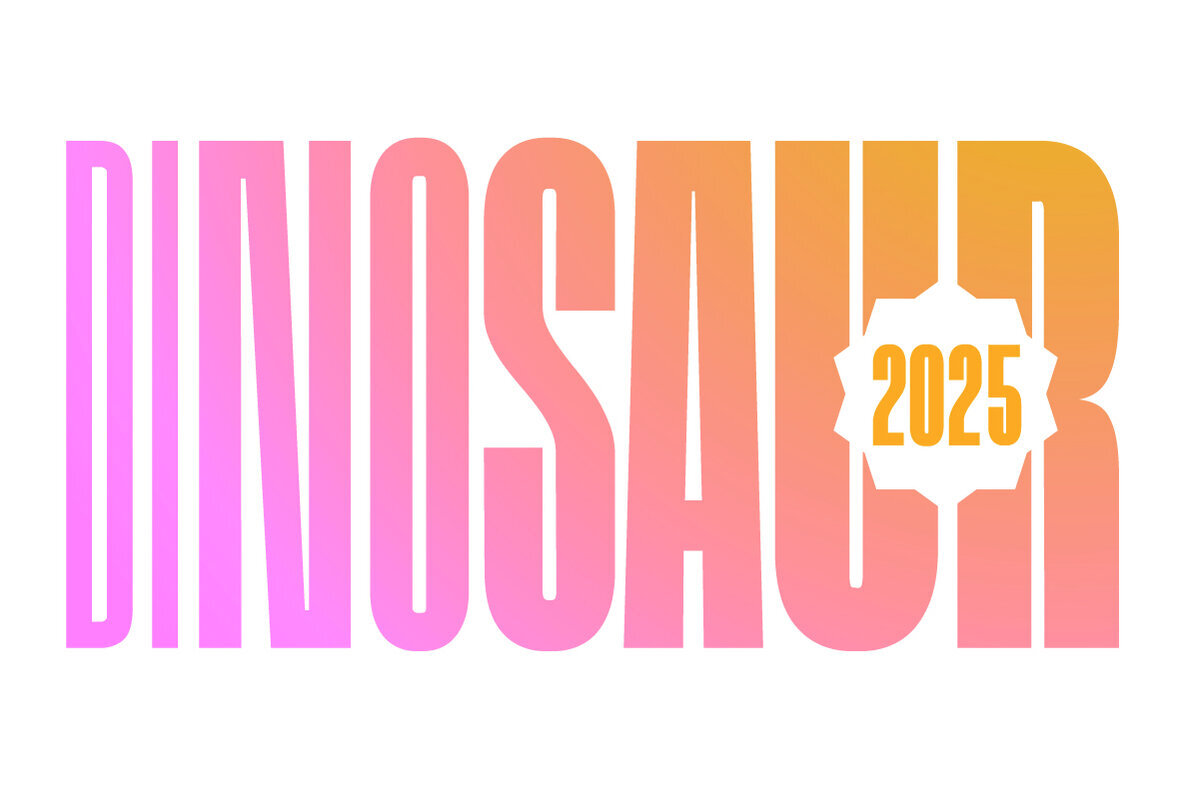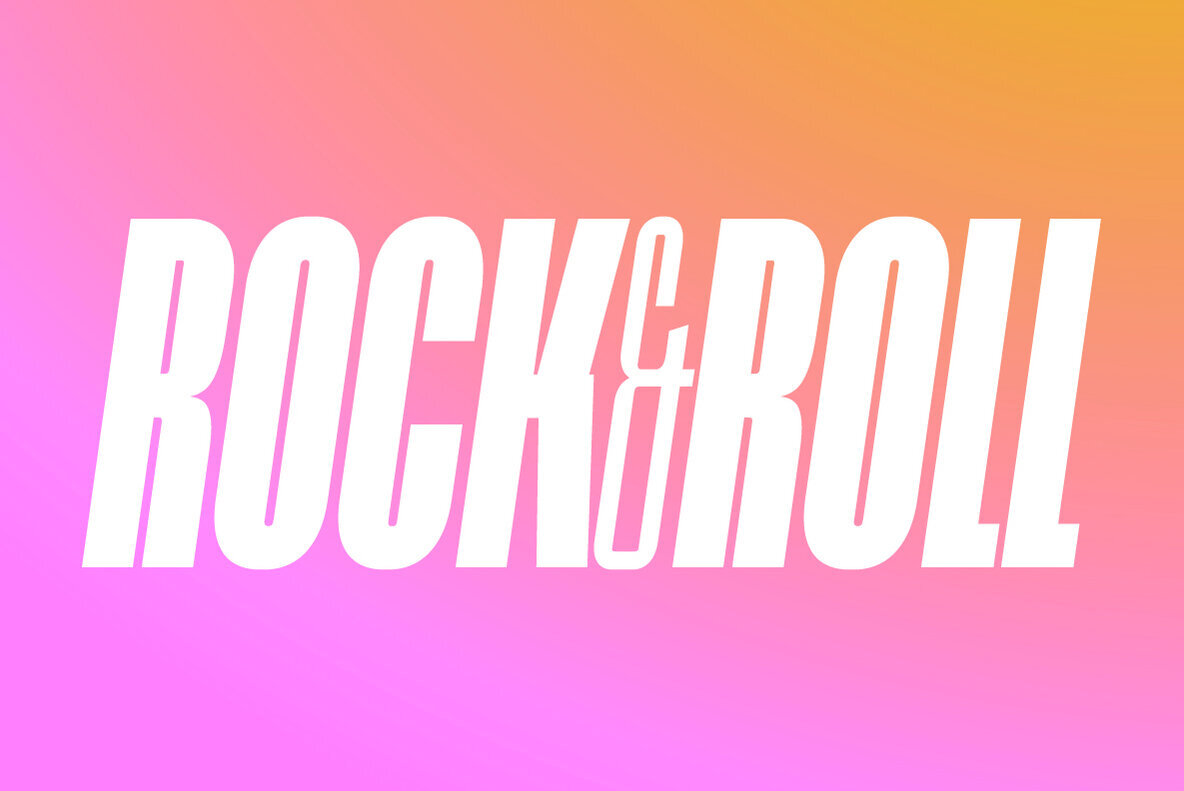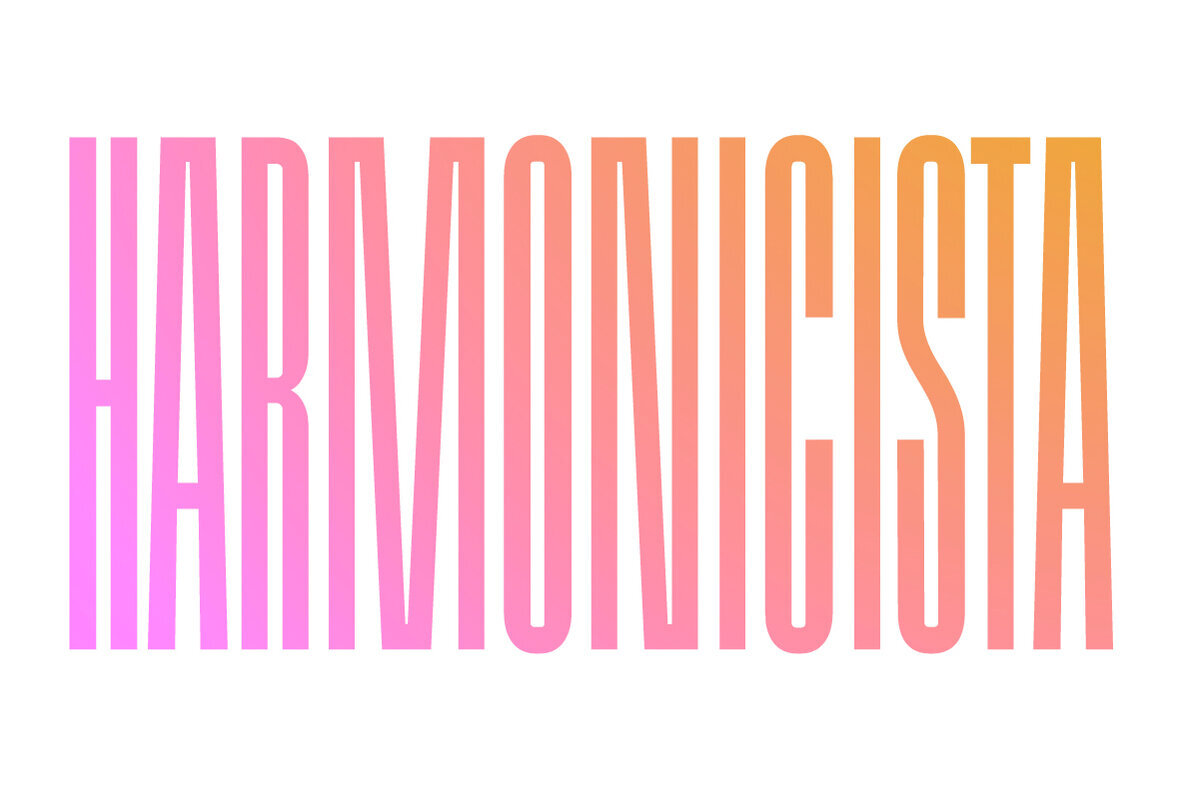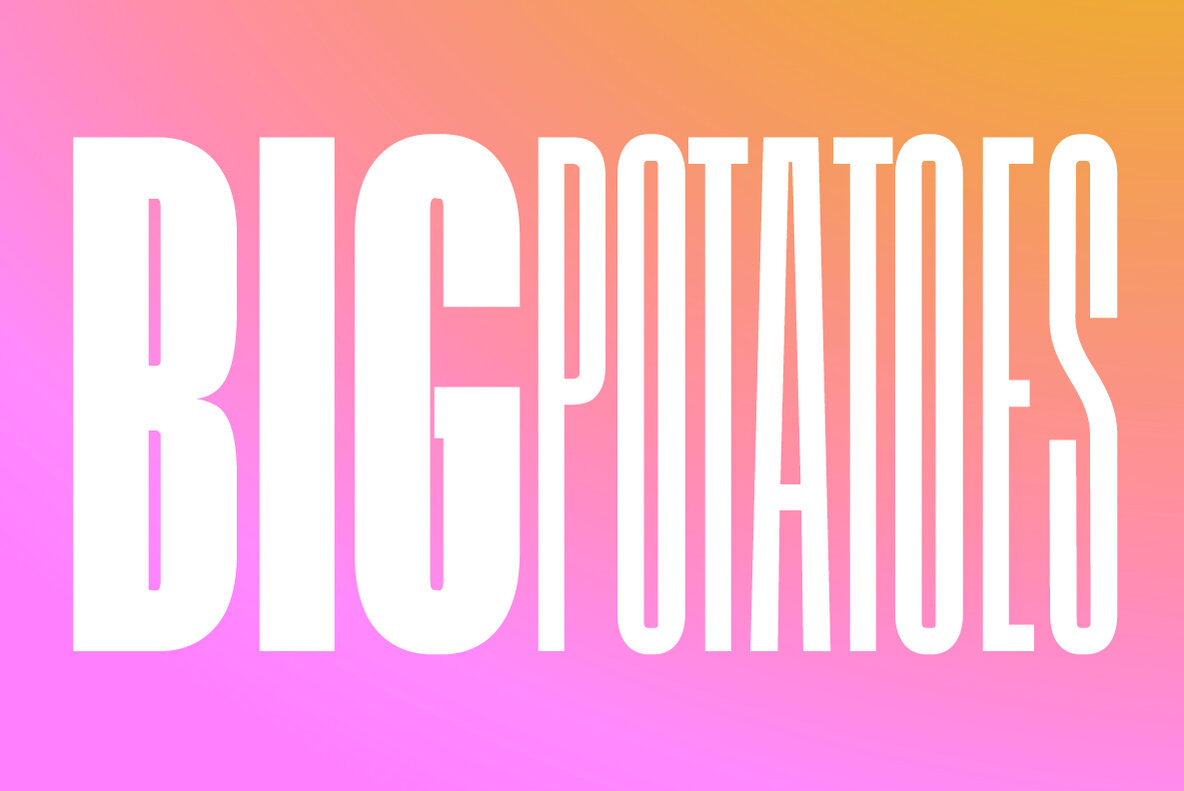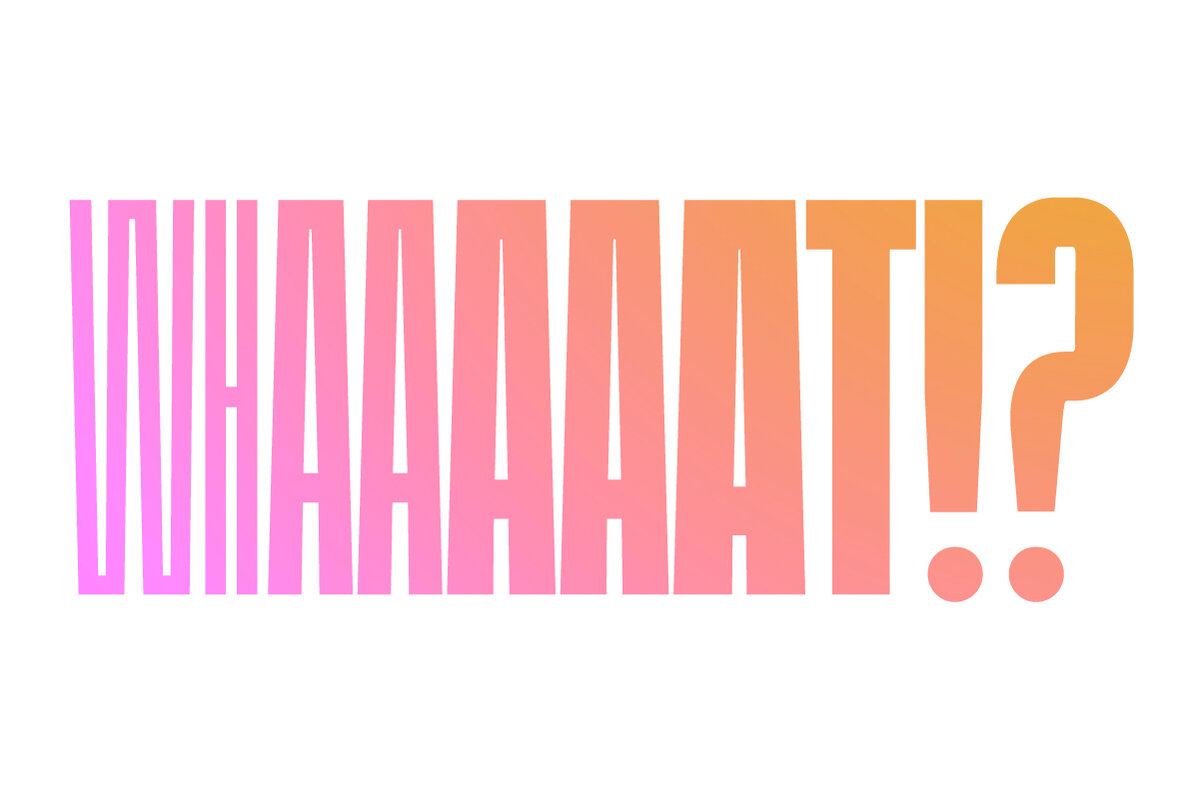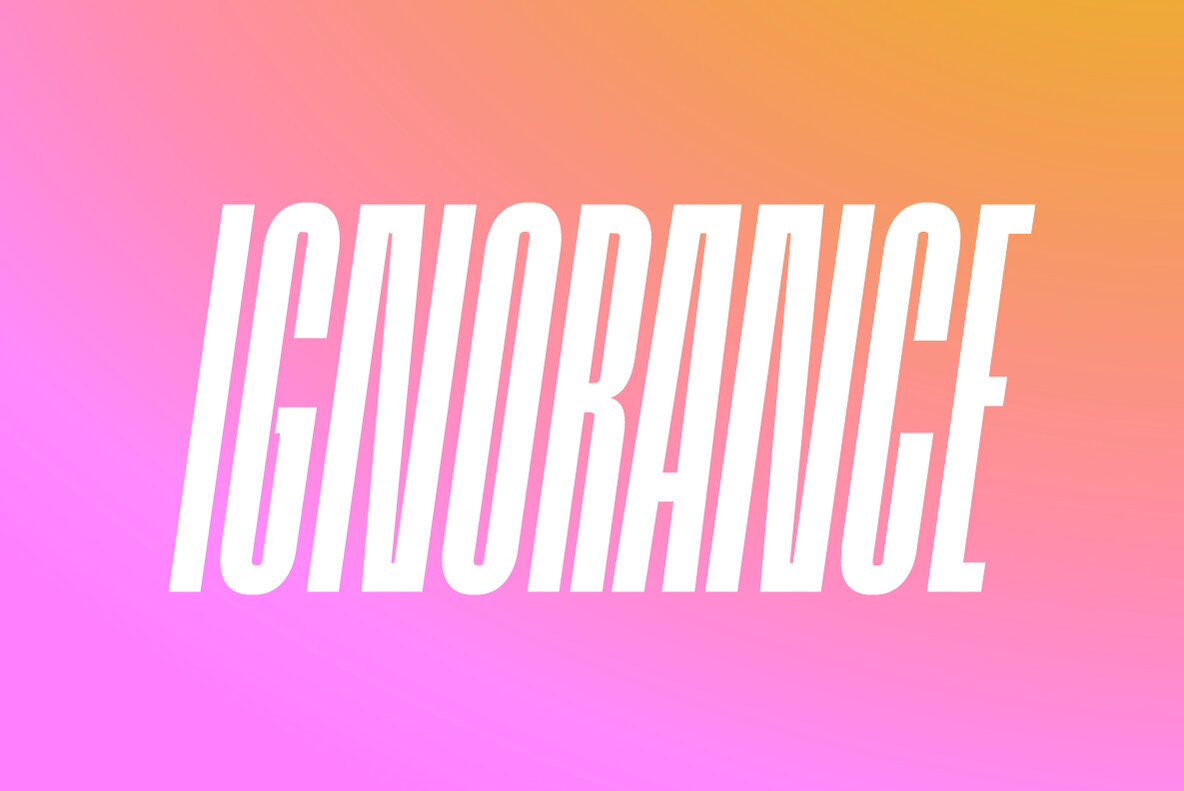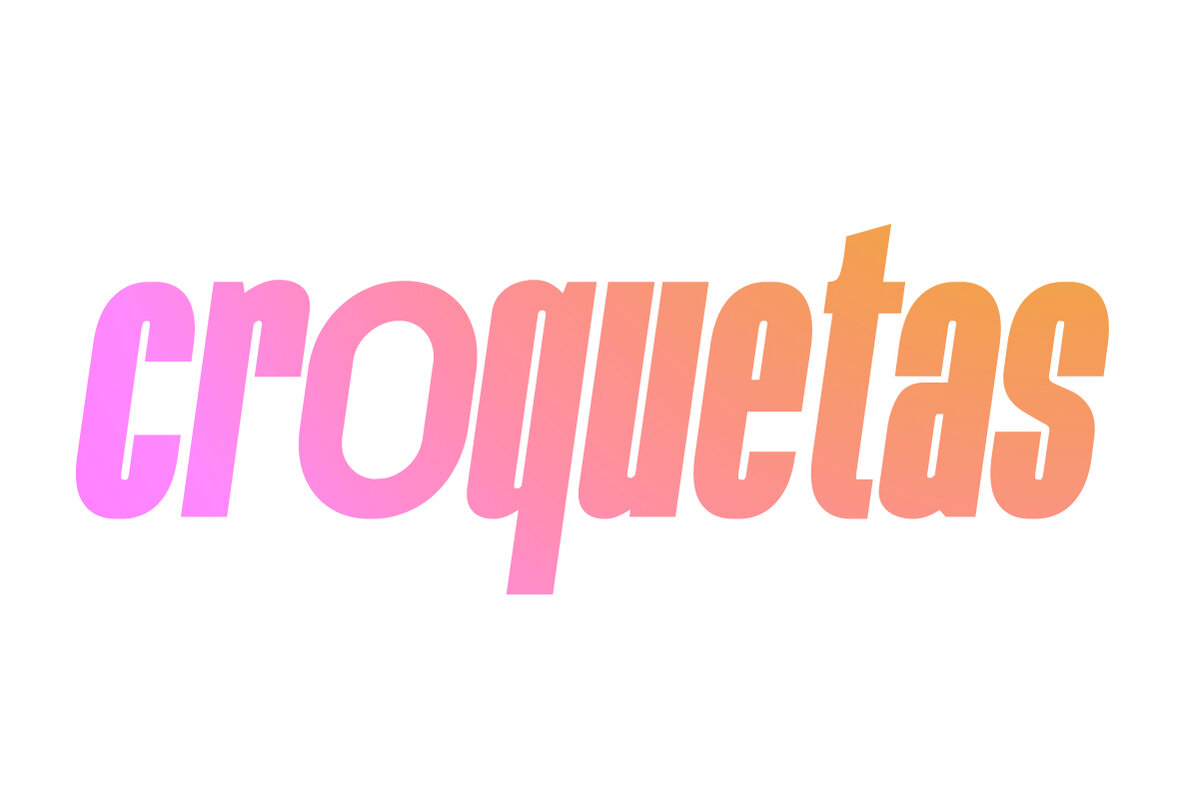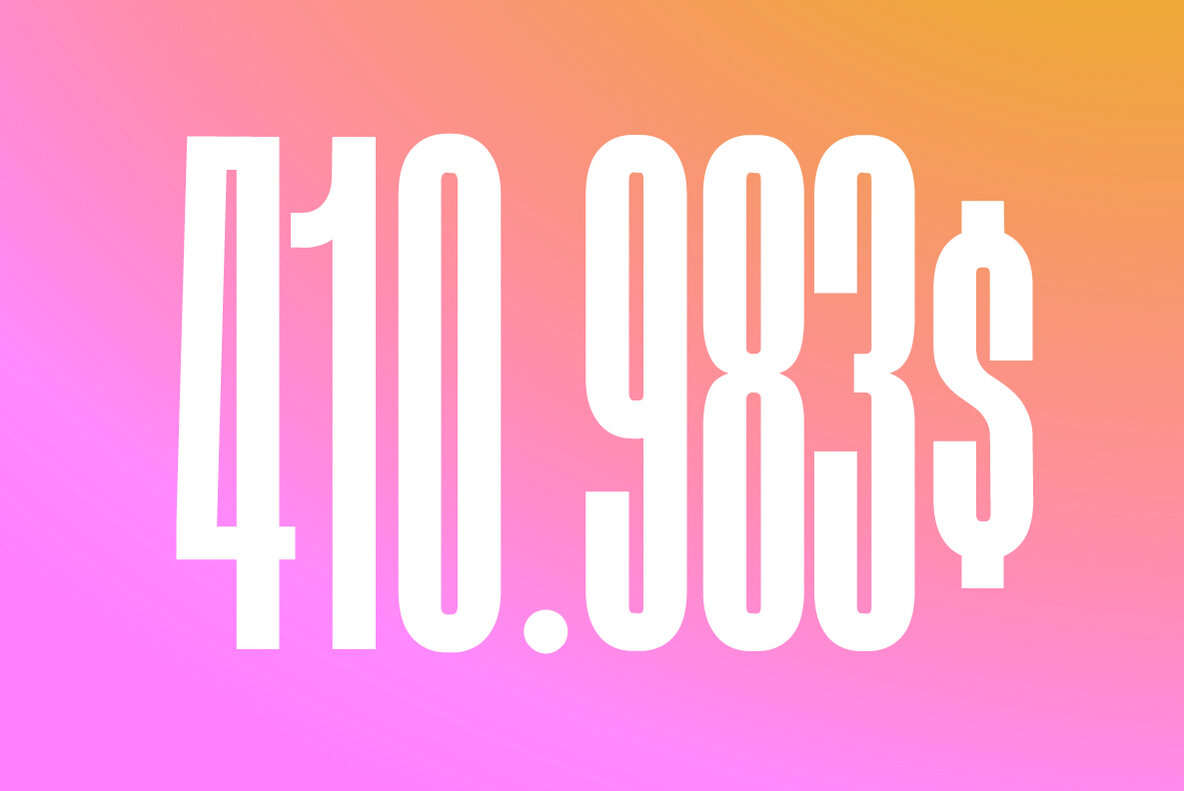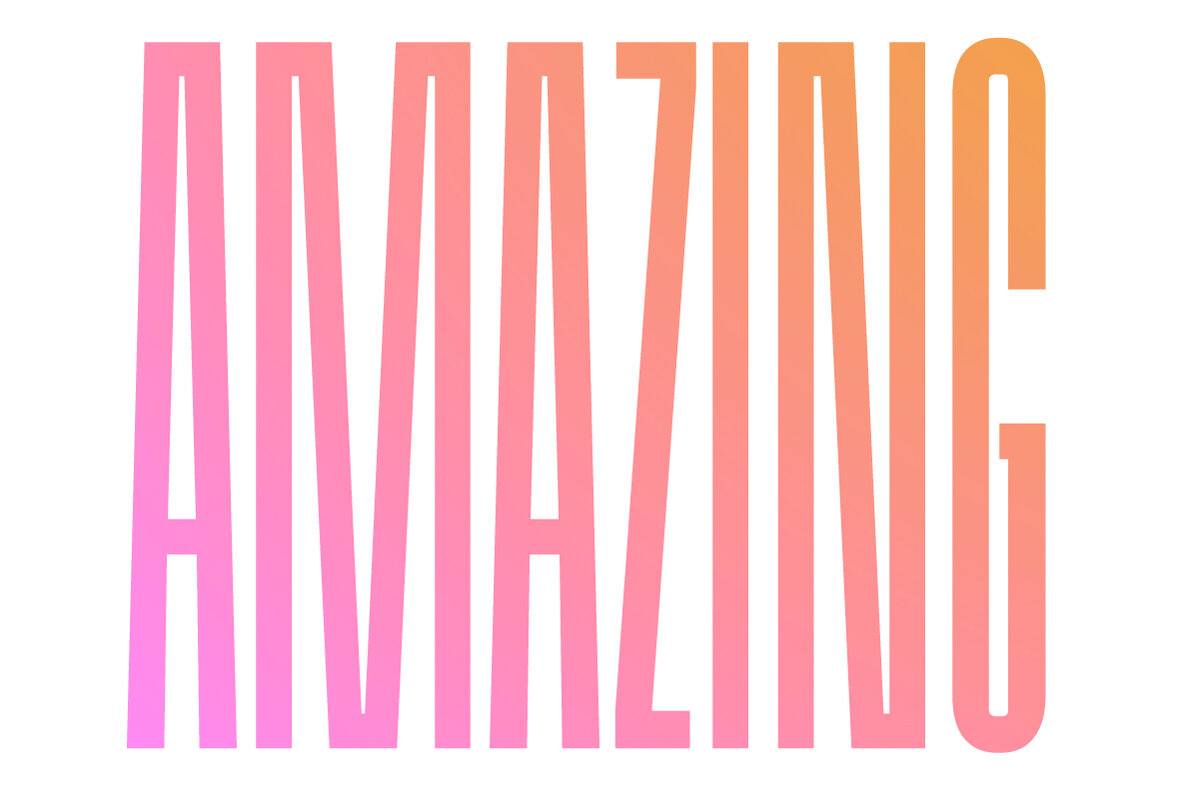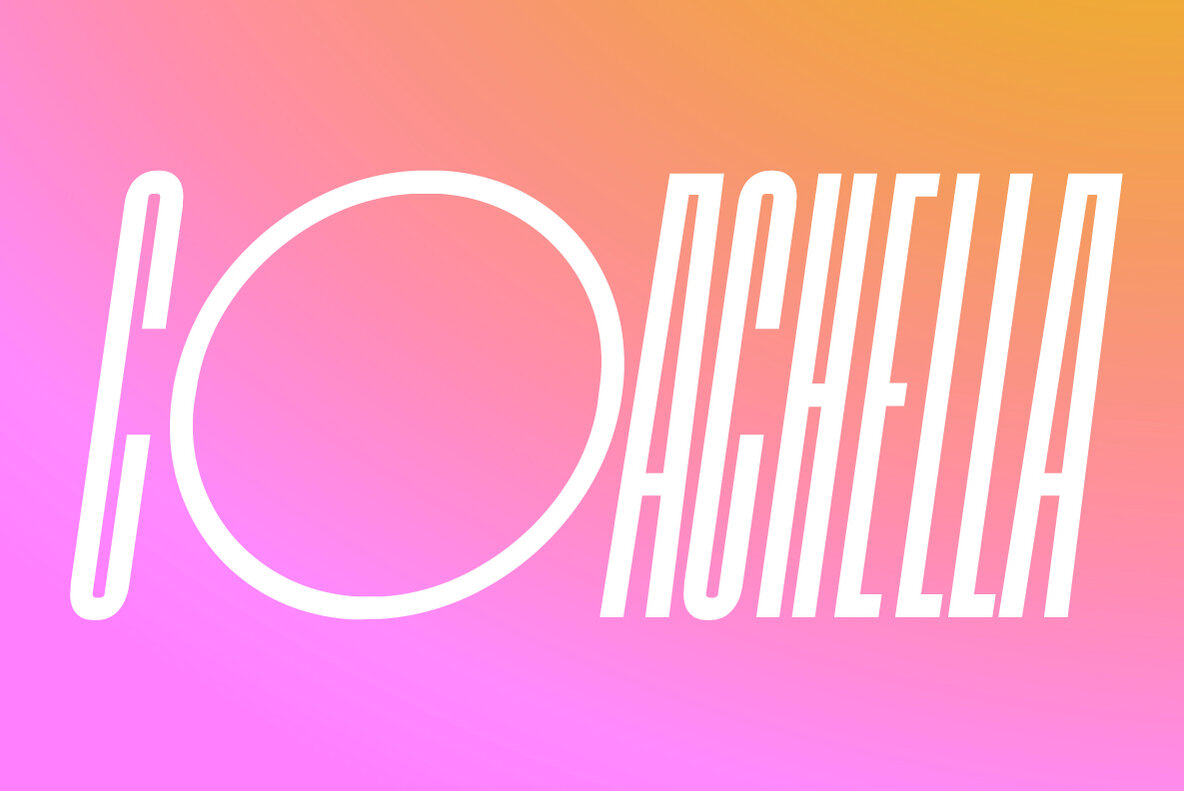
Dinosaur 2025 Font
Dinosaur2025
Dinosaur2025 elevates the art of typography with its dynamic and adaptable form. This updated version of the classic Dinosaur typeface offers a grotesk, ultra-condensed display font infused with versatility and bold character. With a design that commands attention, Dinosaur2025 excels in oversized displays, bold headlines, and striking layouts. Enhance your project with its distinct voice and precise typographic control.Dinosaur2025: Versatile Grotesk Display Font
Daniel Uzquiano is a graphic designer based in Spain. He makes and teaches typography, interaction and graphic design. Goma Mono, Dinosaur and Polar are three of his collection of typographies.